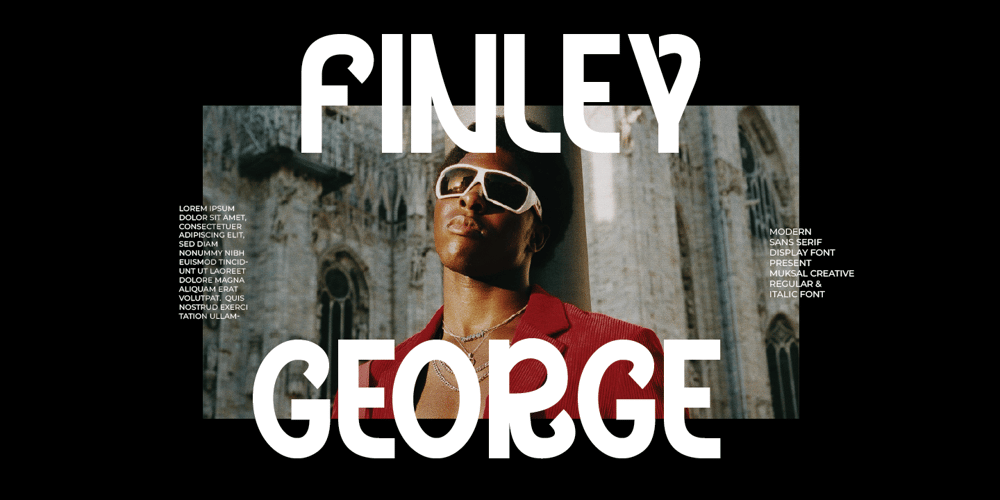
Finley George Font Family was designed by Muksalmina and published by Muksal Creatives. Finley George contains 2 styles and family package options. Finley George combines elegance and functionality, making it ideal for logos, branding, product packaging, marketing materials, and digital media. Its contemporary style and versatility provide a modern and professional edge to any design project.